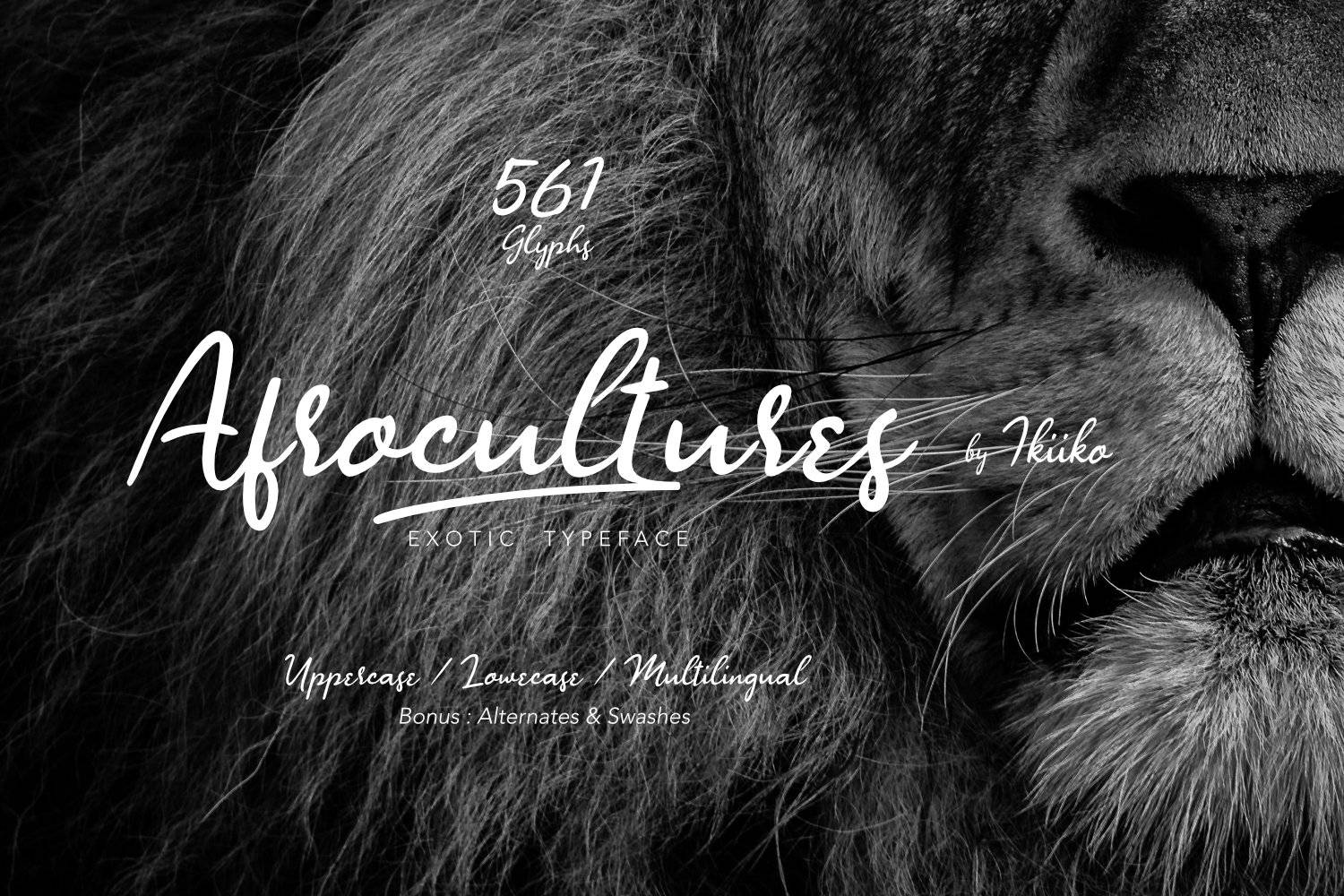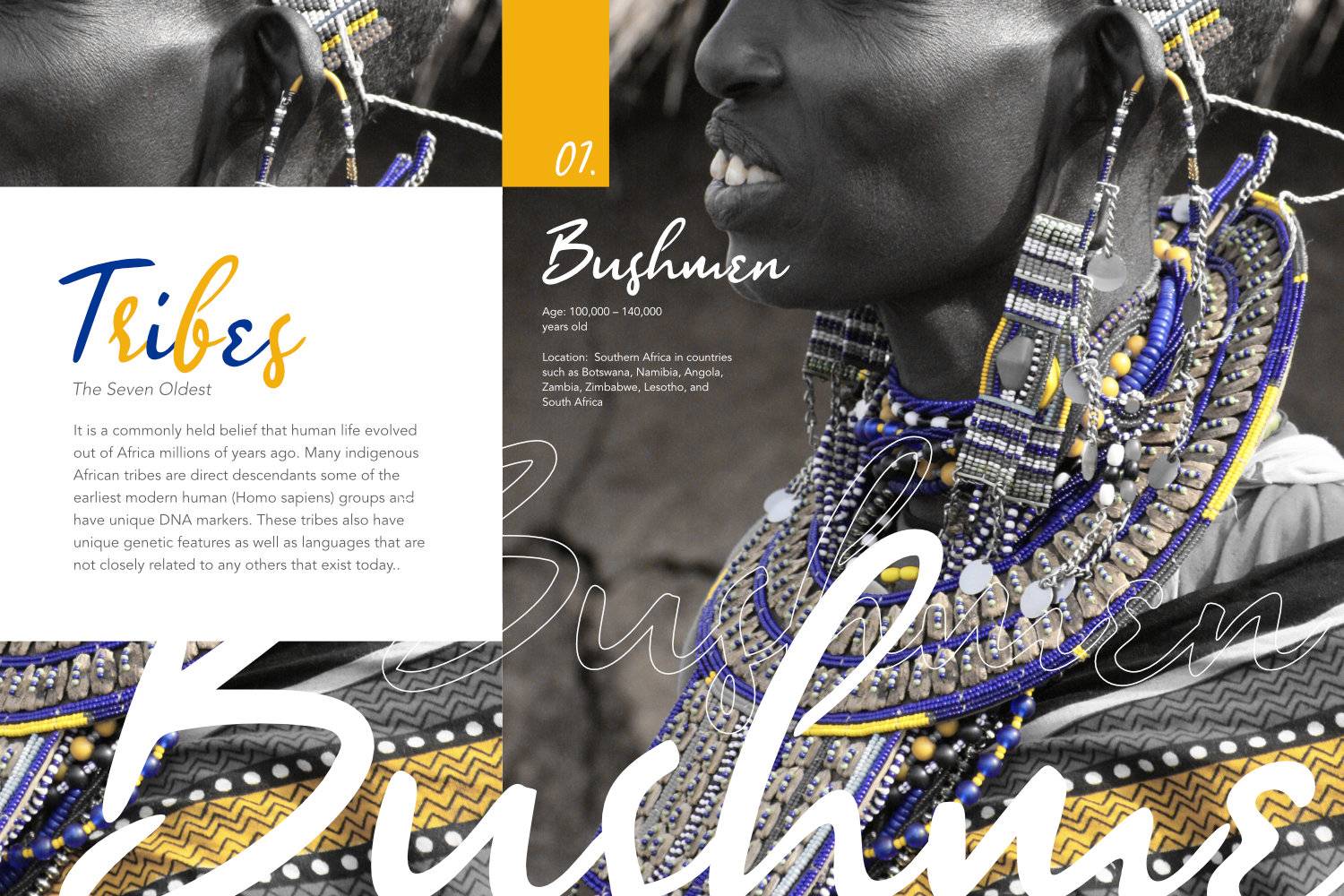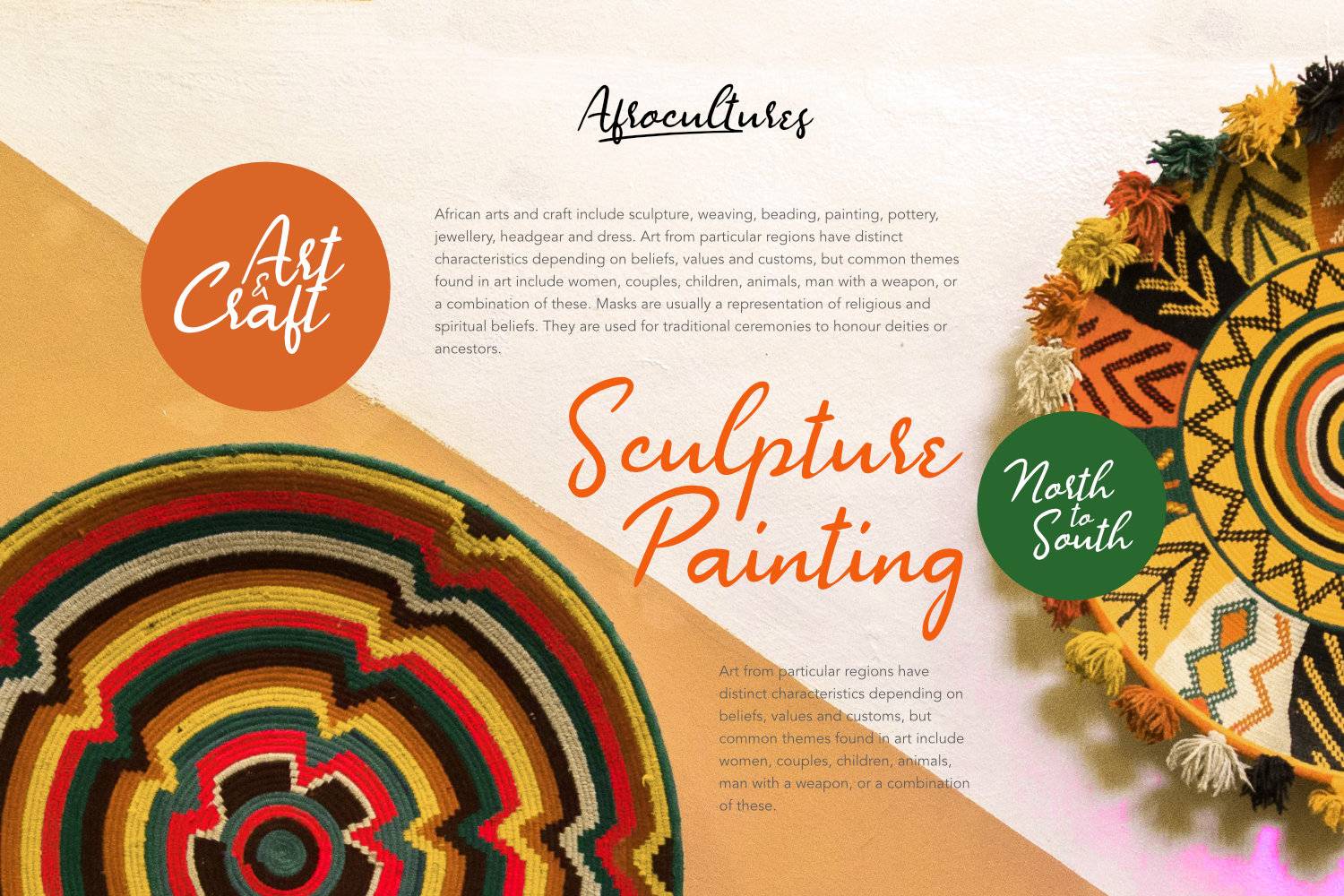
Afrocultures is a stylish script font with a casual, handwritten feel that combines fluid, natural strokes with a lively rhythm. Its medium weight and slightly condensed letterforms create an elegant yet approachable vibe, making it perfect for branding, invitations, and creative projects that want to convey warmth and personality. This font works especially well in headlines and logos where a personal, artistic touch is desired.
Afrocultures Font
About Afrocultures Font
| Font family | Afrocultures Font |
| Designer | Andhika Pradana, Wahyu Eka Prasetya |